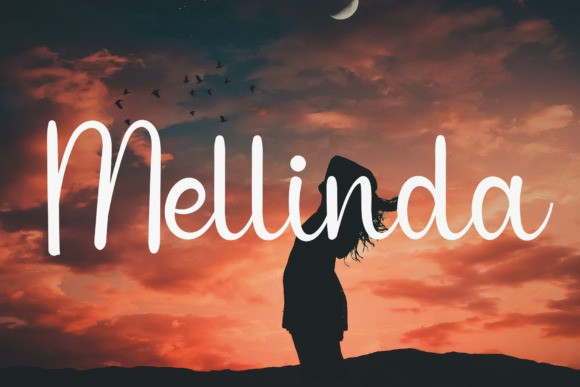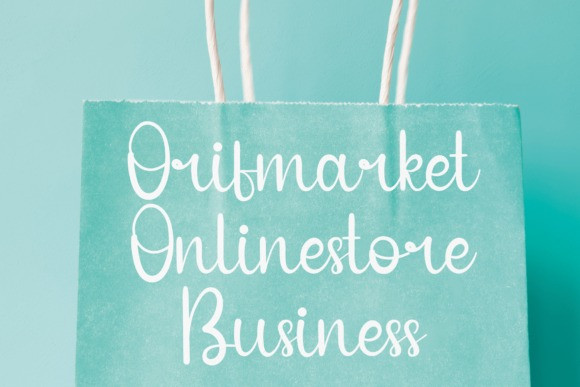
Input Moment Font
Input Moment Font is a stylish script font carefully created with a touch of elegance. Whether you’re looking for fonts for Instagram or calligraphy scripts for DIY projects, this font will turn any creative idea into a true piece of art!